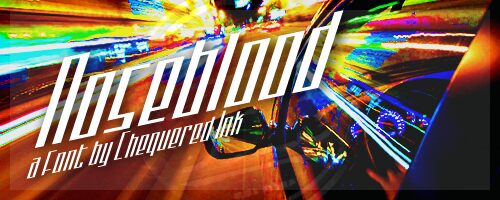
Noseblood, a striking display font designed by Chequered Ink, exudes a distinct techno-inspired aesthetic. Its condensed width and bold, angular forms lend it a raw, futuristic flair. The contrasting thick and thin strokes create a dynamic, eye-catching appearance, while the sleek, streamlined letterforms convey a sense of speed and modernity.
Noseblood's versatility shines through, making it an excellent choice for a wide range of design applications, from bold headings and logos to dynamic user interfaces and immersive digital experiences. Its uncompromising style and unique personality make it a compelling option for designers seeking to make a bold statement.